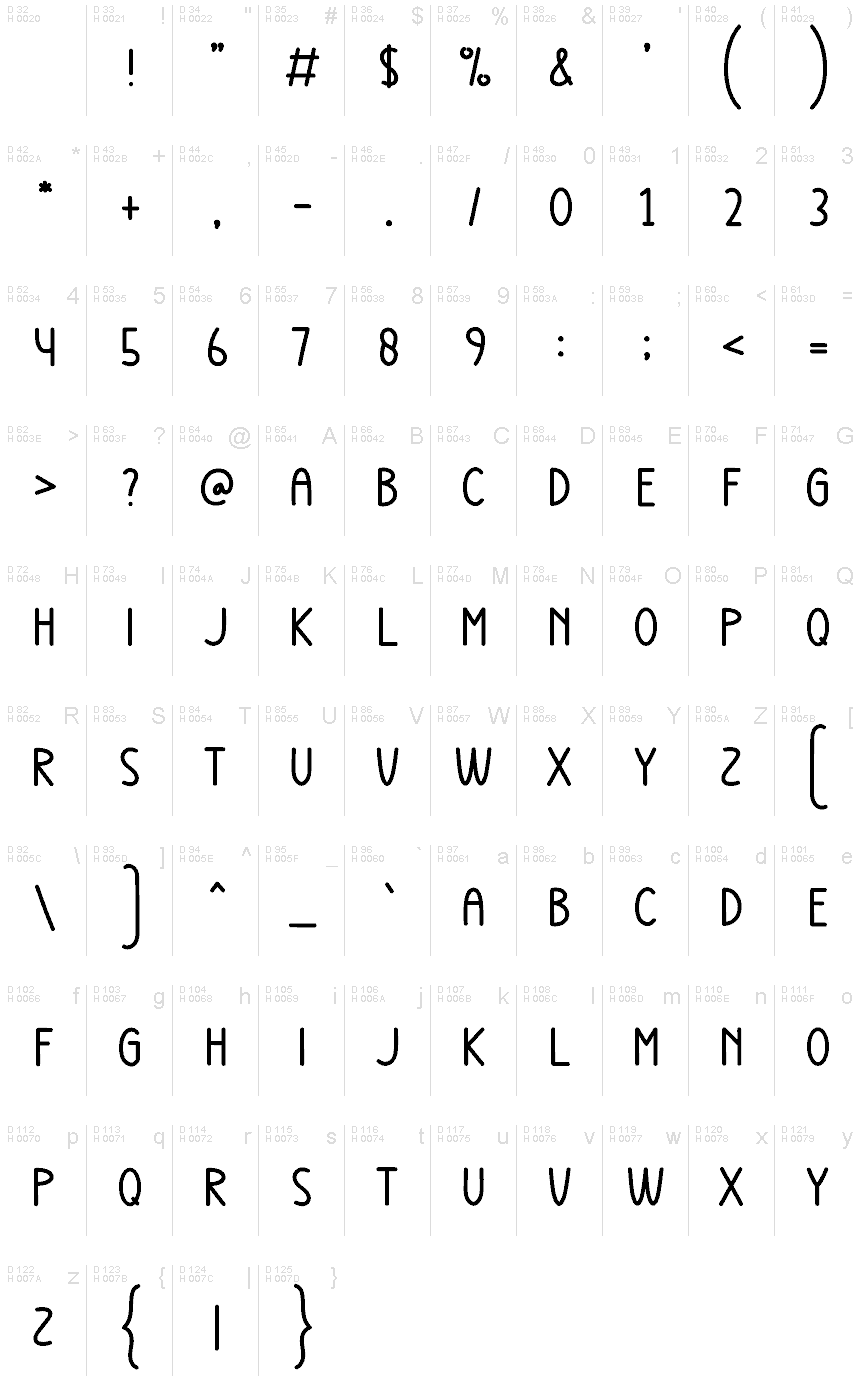
Water Flow
Water Flow font by Andi Moz is a free handwritten font that flows naturally in an outstanding vibe. The condensed light design gives the typeface both a casual and professional appearance at the same time. Rounded and approachable, the font is suitable to perform in modern projects where it can also convey friendliness.